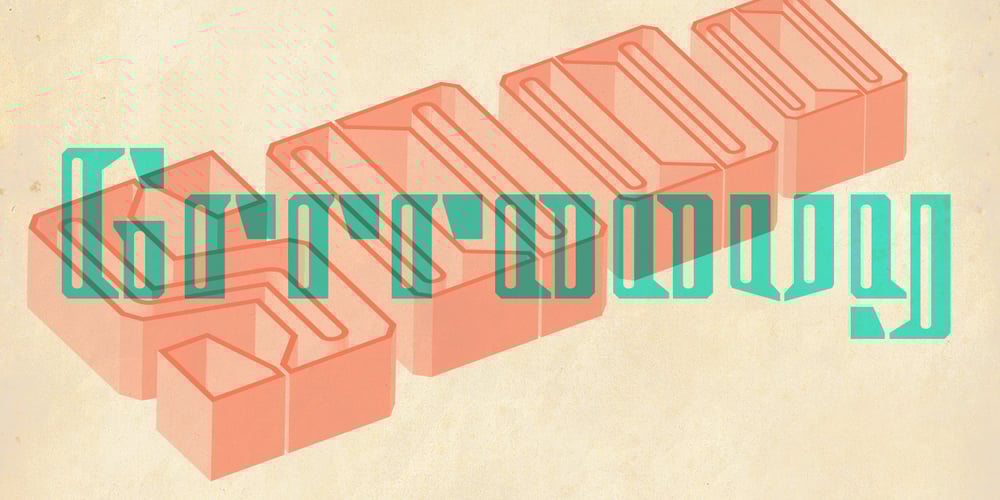
Steel Grrrder Groove Font Family was designed by Michael Gills and published by ULGA Type. Steel Grrrder Groove contains 1 styles and family package options. A single-weight display font, Steel Grrrder Groove is a constructivist inline stencil design best used in short display settings or as an introductory drop cap to grab attention.The design is sharp, angular and slightly condensed with a striking inline groove giving it an air of chiselled chunkiness. It’s groovy but in a slightly robotic way.